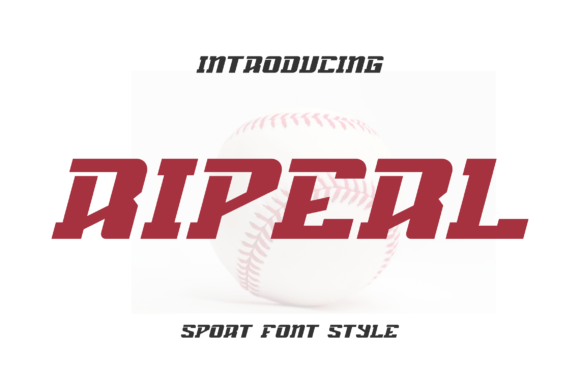
Riperl: A Display Font That Makes Your Campaigns Instantly Recognizable
It’s 9:47 a.m., and I’m zooming in on a YouTube thumbnail preview on my phone. The background is bold, the product shot crisp—but the headline feels… soft. Not emotionally, but visually. It blends. It hesitates. That’s when I swap in Riperl.
Riperl isn’t just another sports-themed font—it’s a display typeface with authentic energy: tight letter spacing, confident stroke contrast, and subtle athletic rhythm in its curves and angles. Think of it as the kind of font that leans forward—not shouting, but *ready*. It carries motion without sacrificing clarity, and confidence without leaning into cliché. No exaggerated serifs or forced “grunge” textures—just clean, modern structure with personality baked in.
We used Riperl across a six-week Instagram content series for a new fitness apparel launch. Not for body copy. Not for captions. But for every single headline frame: “Week 1: Strength Starts Here”, “Your First Mile Counts”, “No Gear. Just Go.” Each one landed instantly—even at thumbnail size. Why? Because Riperl’s uppercase-heavy design, strong x-height, and open counters hold up under compression, cropping, and fast-scrolling feeds. On mobile, where attention lasts less than two seconds, that difference isn’t subtle—it’s operational.
Riperl shines brightest where you need instant recognition and message clarity: YouTube thumbnails, Pinterest pins with overlay text, Reels cover slides, email banner headers, digital ad headlines, and landing page hero statements. It’s built for display—not extended reading. So yes, it works beautifully for logo lockups, quote graphics, campaign labels (“SUMMER MODE ON”), and branded templates—but skip using it for paragraph text or fine print. Its strength is impact, not endurance.
Readability on small screens? Solid. We tested Riperl at 24px over dark gradients and light photo overlays—no halos, no blurring, no awkward kerning traps. Its medium weight holds up even when scaled down to 18px for mobile banners, and the clean terminals prevent visual noise. On Pinterest, where users scan vertically, Riperl’s vertical stress and balanced proportions helped our pins stand out in dense grids—no squinting required.
Pairing Riperl is intuitive, not intimidating. We matched it with a neutral, highly legible sans serif (like Inter or Montserrat) for supporting text—clean contrast without competition. For a limited-edition merch drop, we layered Riperl headlines over a quiet serif for product descriptions—elegant tension, clear hierarchy. And for a webinar series on movement science? Riperl for the title (“Move With Purpose”), then a relaxed handwritten font for speaker names—human warmth beside structural confidence.
In practice, Riperl changed how we approached visual hierarchy. Instead of adding icons or extra color blocks to draw the eye, we let the type do the work. One headline in Riperl + one supporting line in a clean sans = immediate focus, zero visual clutter. That simplicity translated directly into faster asset turnaround: fewer revision rounds, less back-and-forth about “making it pop.” When your font already has presence, you spend less time manufacturing it.
We used Riperl for an online shop’s flash sale banner—“48 HOURS. FULL POWER.”—and watched how often teammates paused mid-scroll to read it during internal reviews. Same with a blog header series: “Why Recovery Isn’t Passive”, “The Science Behind Steady Gains”, “Form > Force”. Each felt like a statement—not decoration. That’s Riperl’s quiet superpower: it makes declarative language feel earned, not imposed.
It also plays well across platforms without losing identity. A Reels cover designed in Figma with Riperl looked consistent when exported to Canva for team use. A Pinterest pin created in Adobe Express retained its punch when resized for Facebook Stories. No re-kerning, no weight adjustments—just reliable performance. That consistency builds recognition faster than any filter or template ever could.
Riperl isn’t for every project. It won’t suit a law firm’s annual report or a meditation app’s onboarding flow. But if your campaign lives where energy, authenticity, and immediacy matter—if your audience scrolls fast, decides faster, and remembers what *feels* right—then Riperl isn’t just a font choice. It’s a strategic alignment.
Next time you’re staring at a half-finished thumbnail, or tweaking a banner for the third time, ask: does the type have the same readiness as the message? If not—Riperl might be the quiet upgrade your visuals have been waiting for.